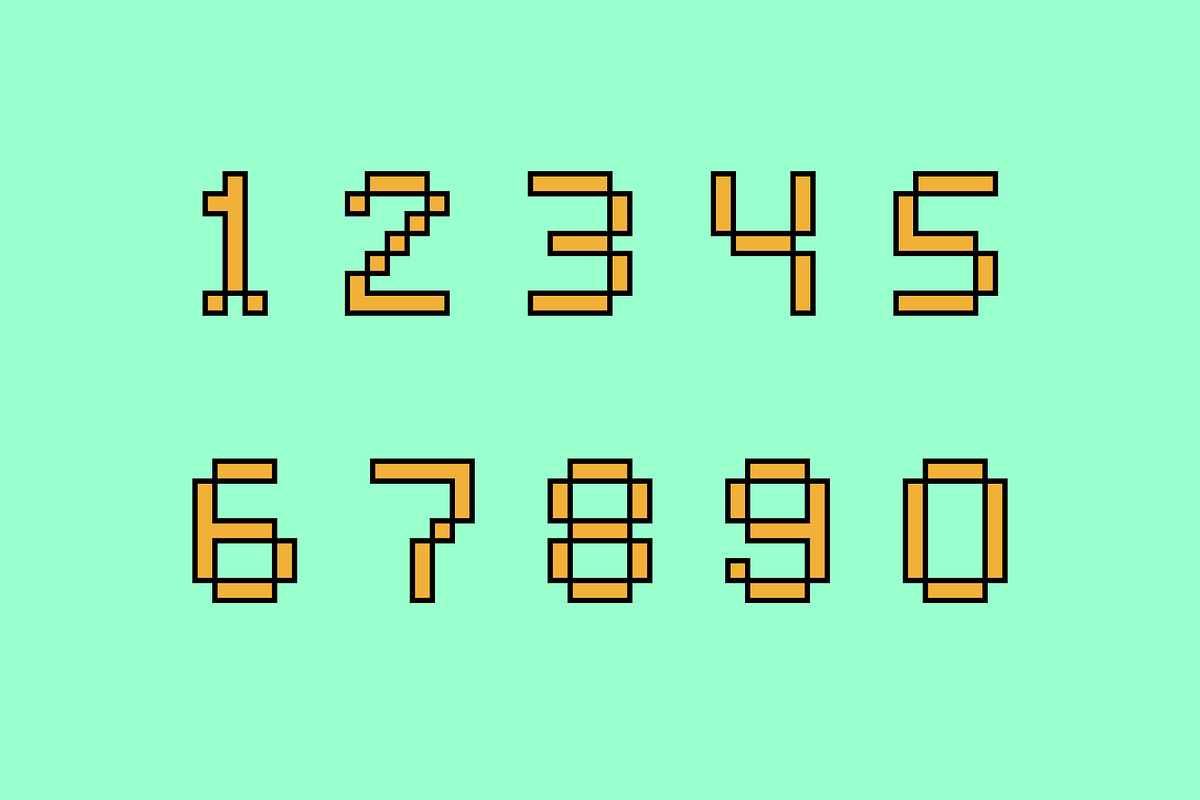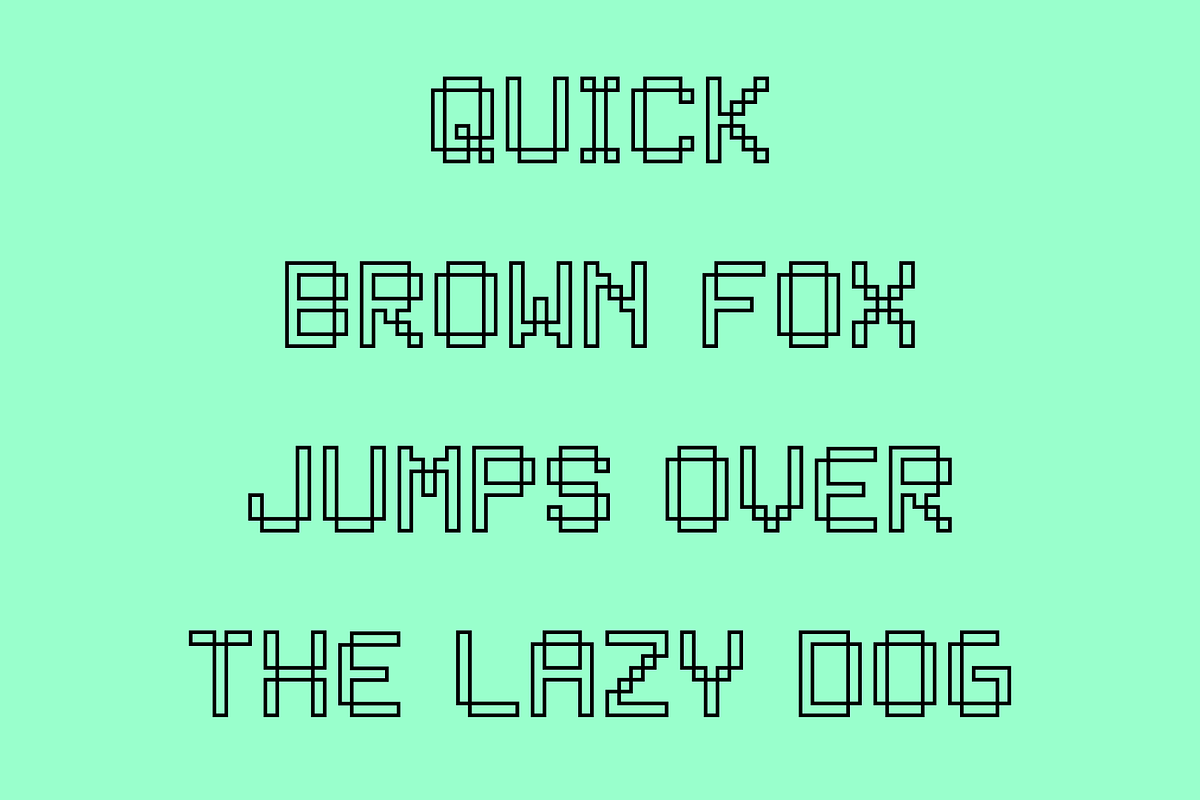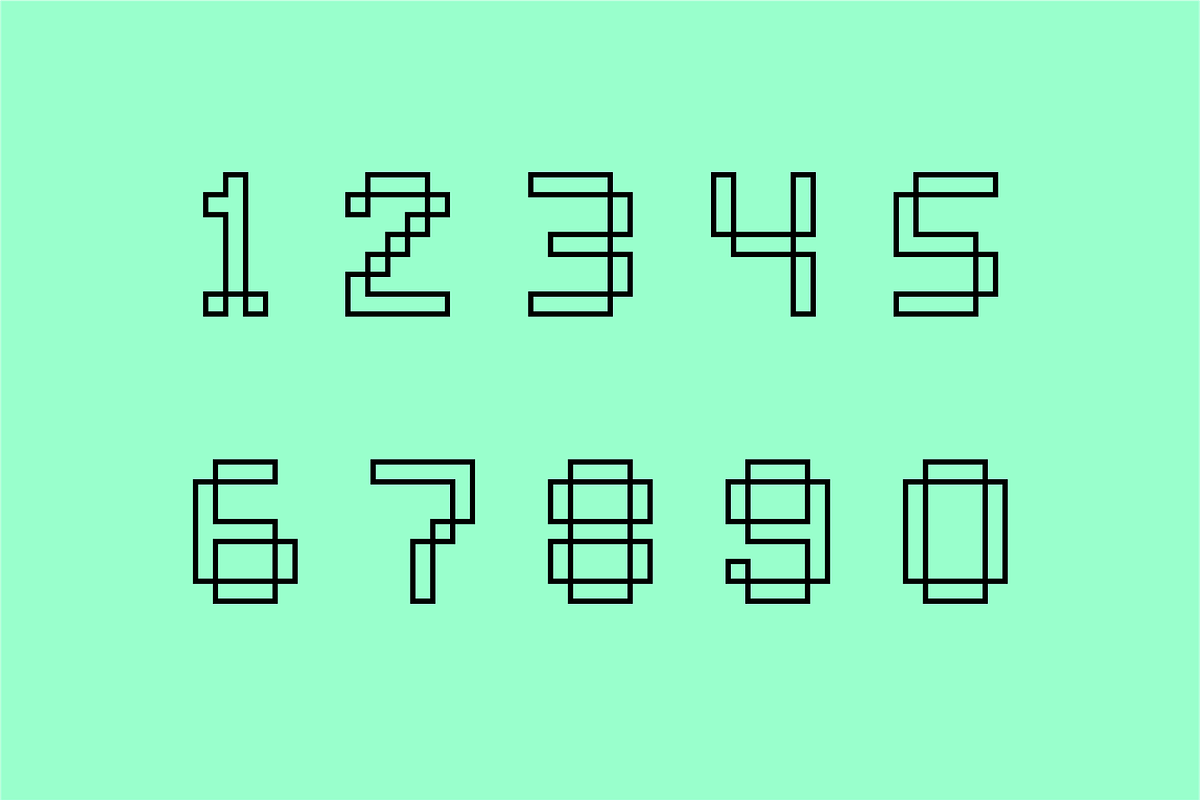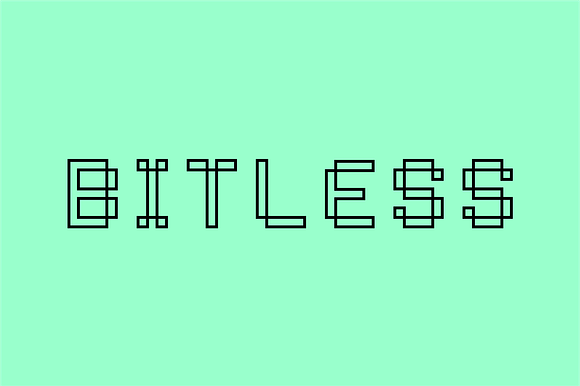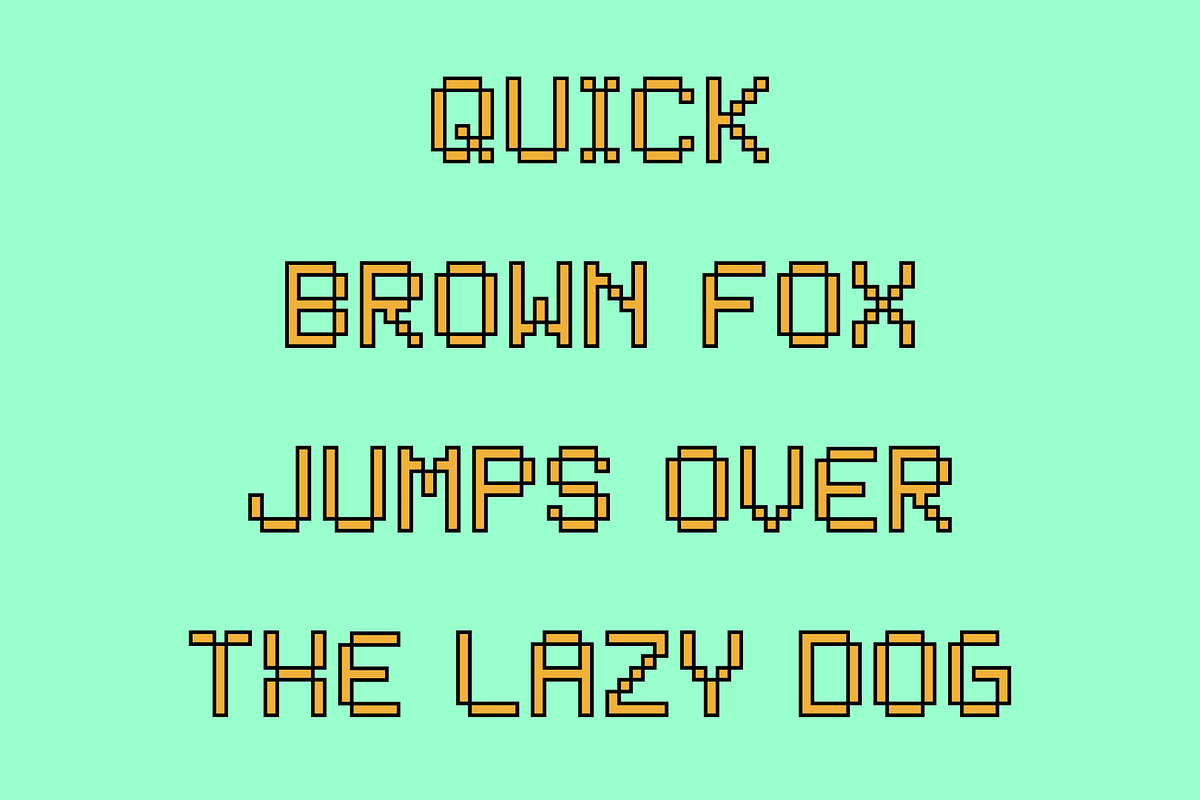
Bitless "Techno Square" Font
Why Bitless "Techno Square" Font is worth a look
Bitless "Techno Square" Font by Krafti Lab fits naturally into Branding, posters, packaging, typography.